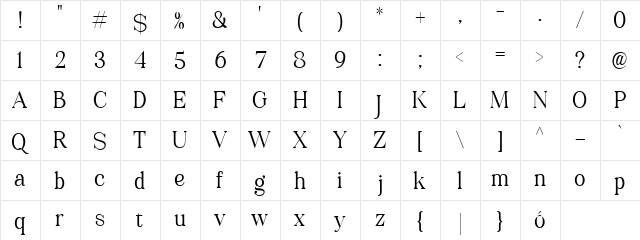
Karatone DEMO Regular
Design Context for Karatone DEMO Typeface
Karatone DEMO is a composed and adaptable typeface that performs quietly and consistently across a wide range of design contexts.